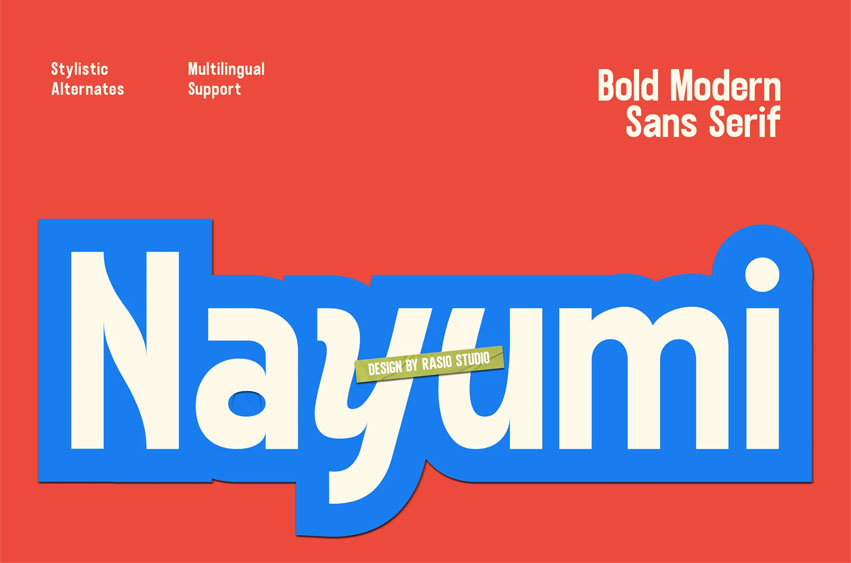
Nayumi Font is a bold modern sans serif font with a cheerful and contemporary twist. Its geometric shapes blend with smooth curves and lively alternates, giving a playful yet confident appearance. Designed for expressive visuals, Nayumi works beautifully in colorful branding, editorial titles, and digital graphics that need a strong, upbeat presence.
It features stylistic alternates, ligature combinations, and full multilingual support to enhance creative flexibility across languages and media.
Relevance and Use Cases is perfect for playful branding, youth culture design, modern packaging, editorial covers, digital campaigns, and lifestyle products that demand bold and joyful typography.
• Stylistic Alternates & Ligatures
Add energy and character to your visuals with Nayumi — a bold sans serif font that celebrates modern playfulness in every letter.